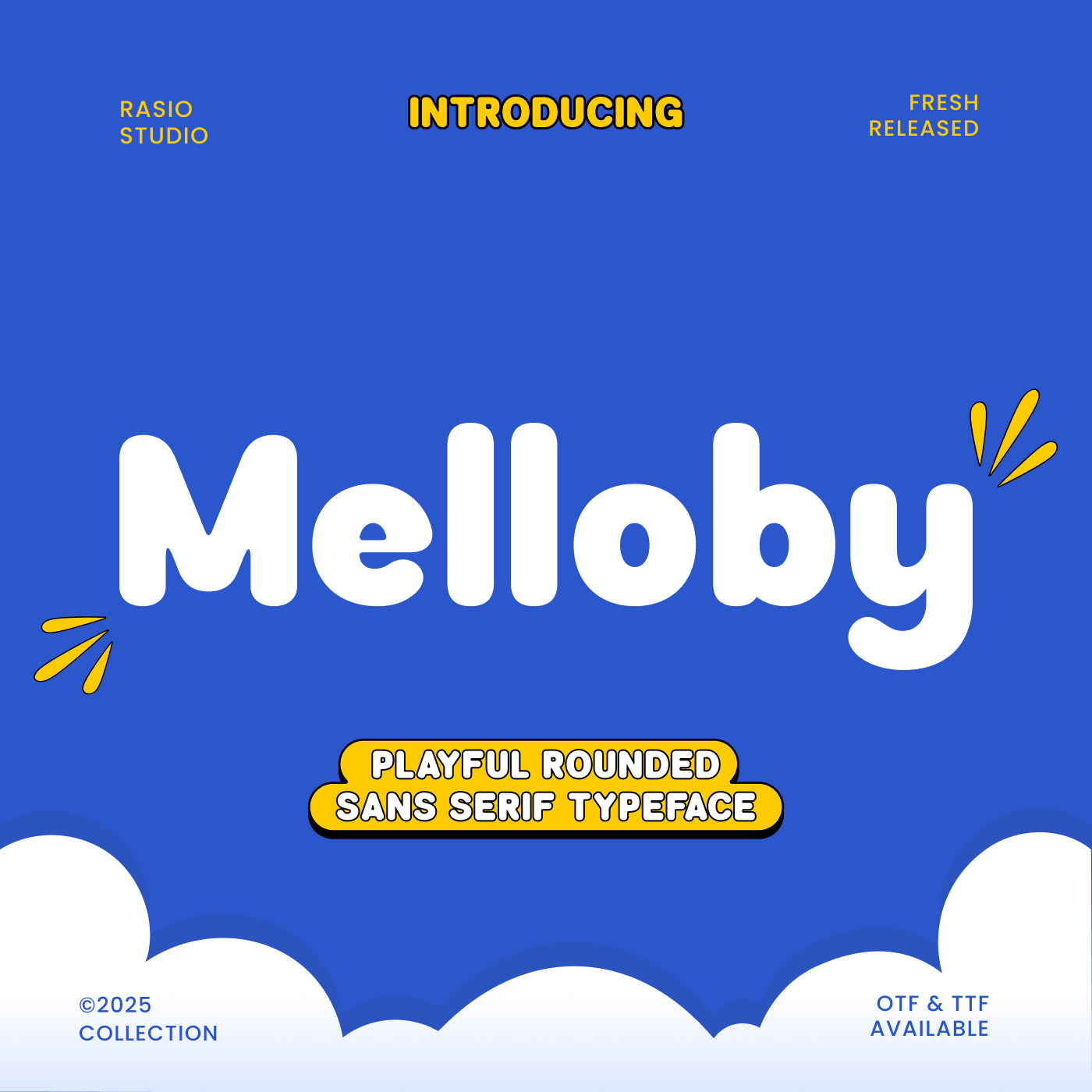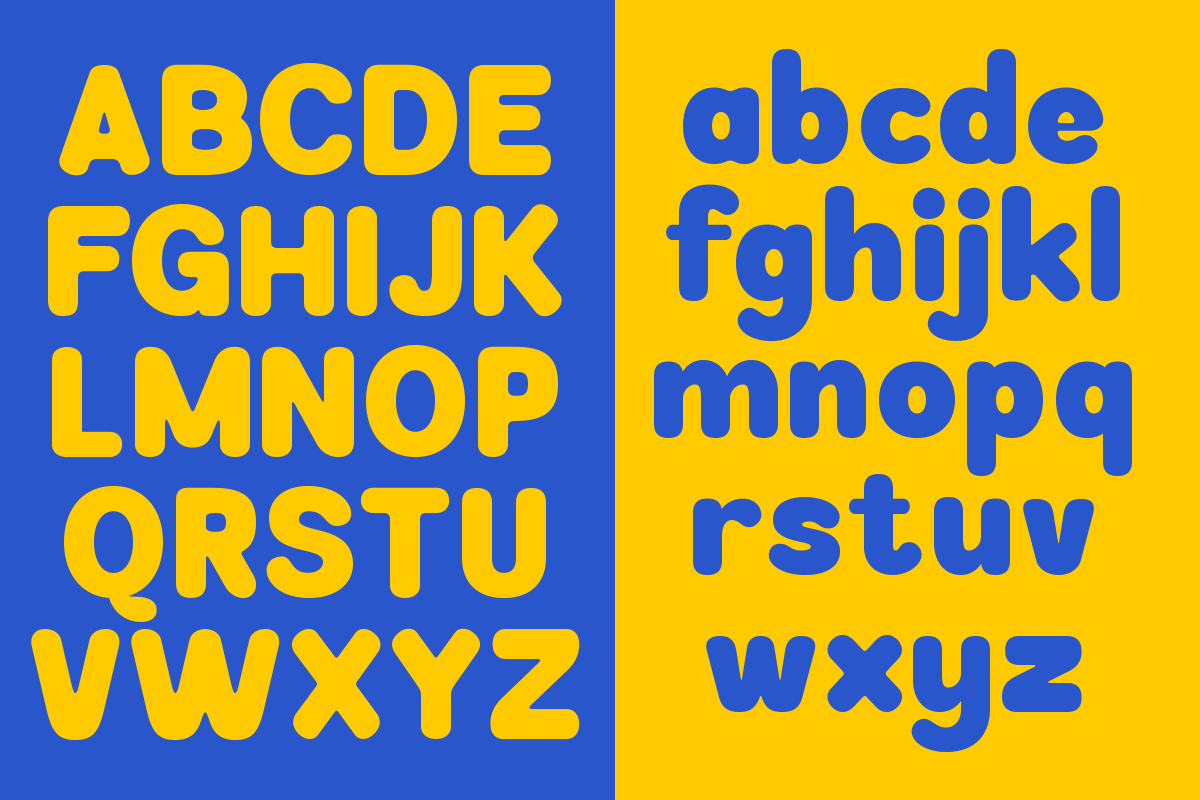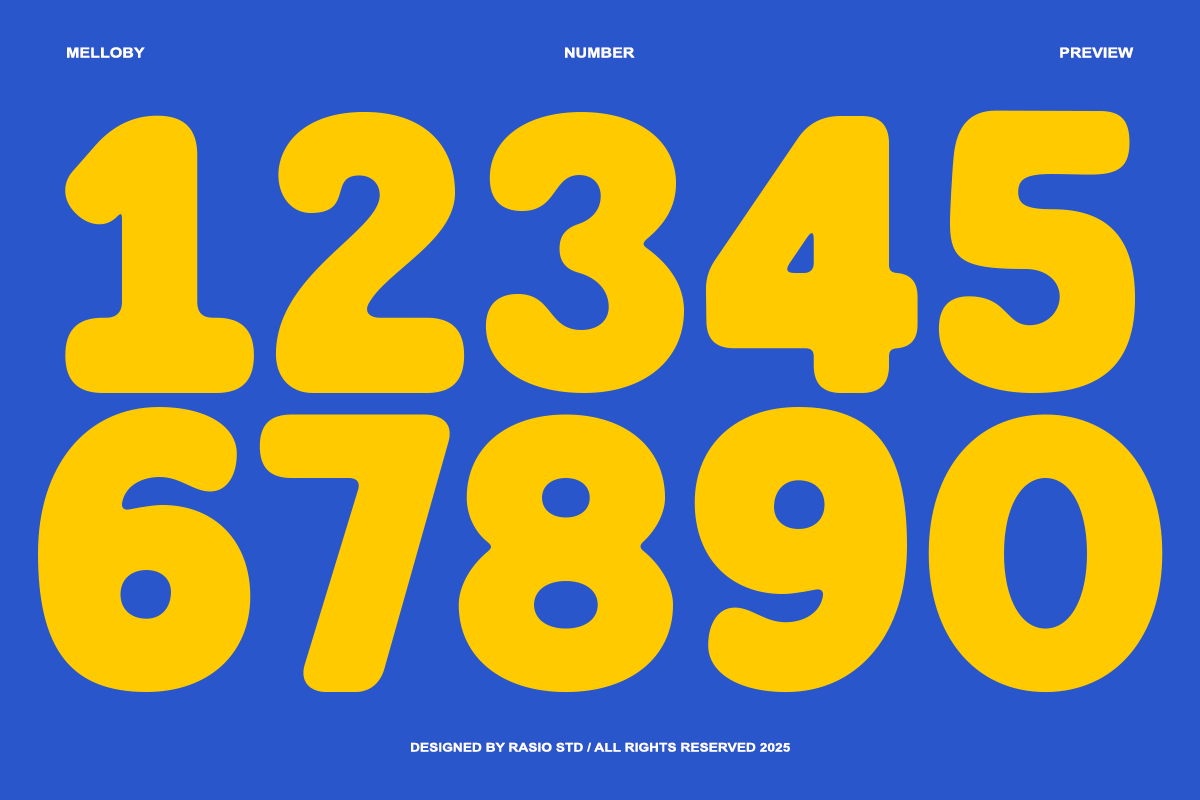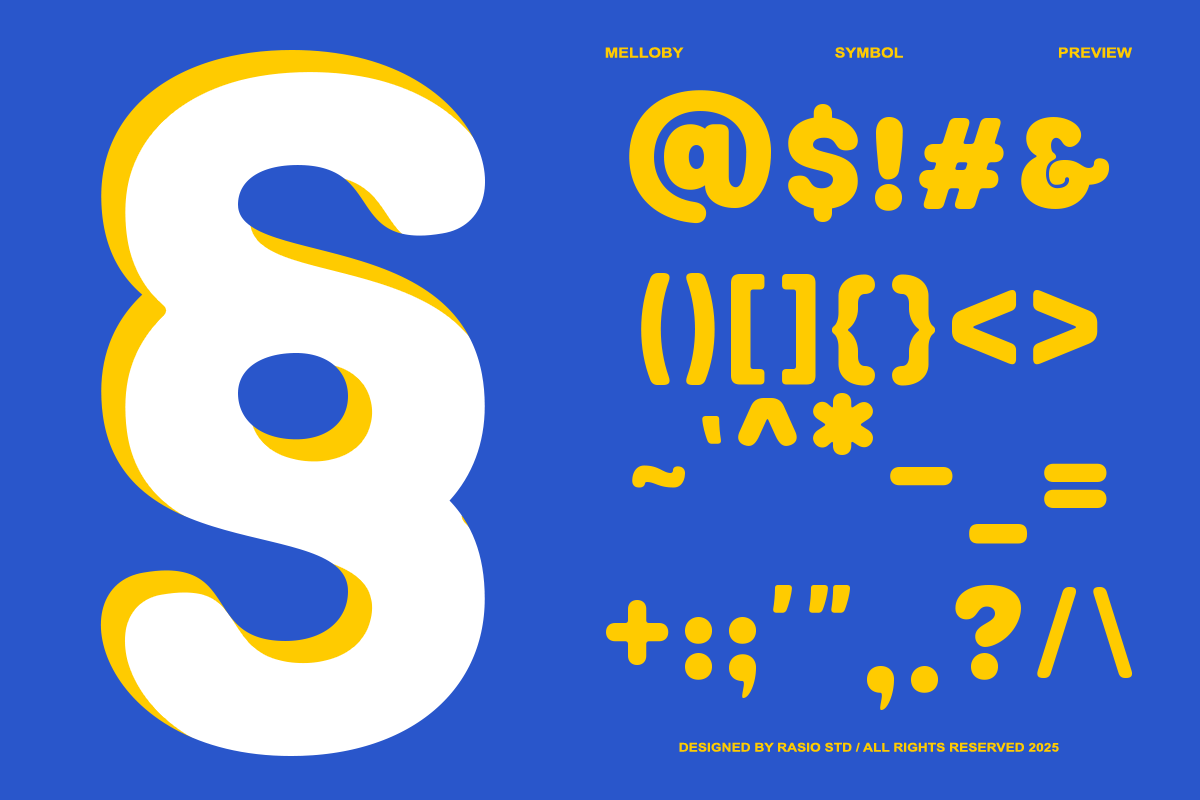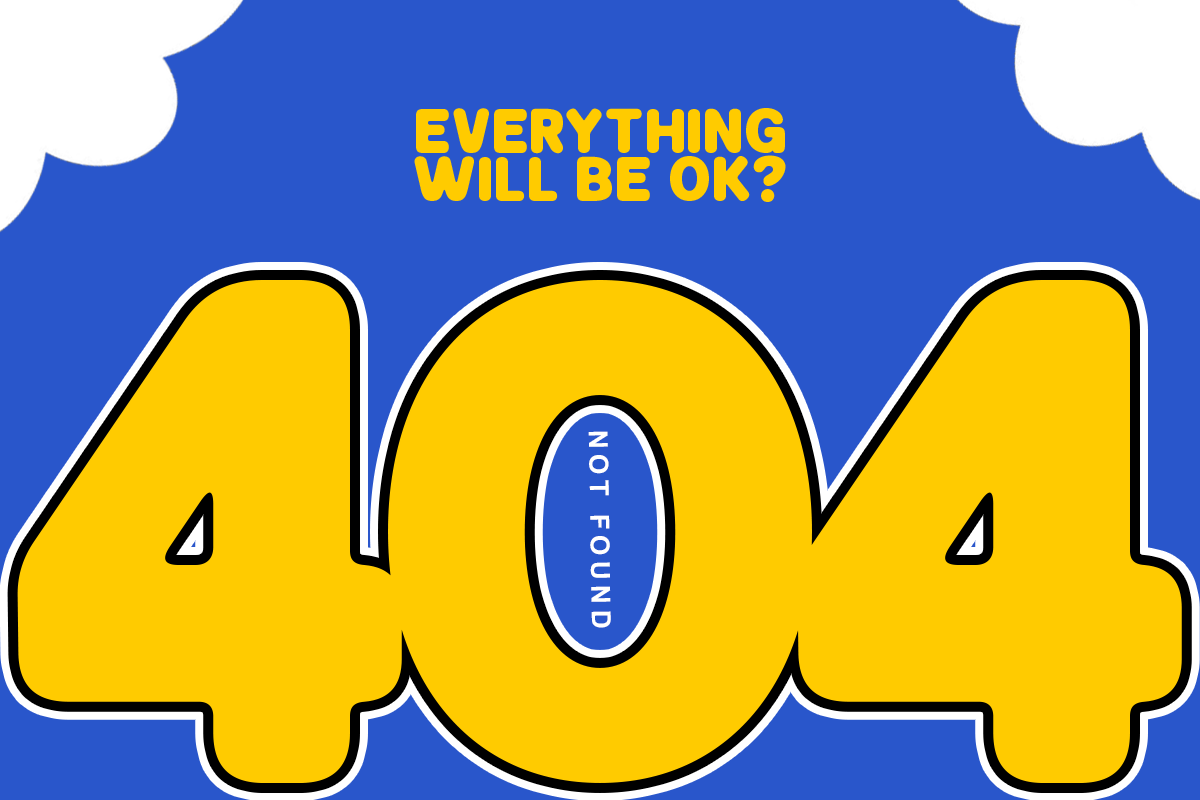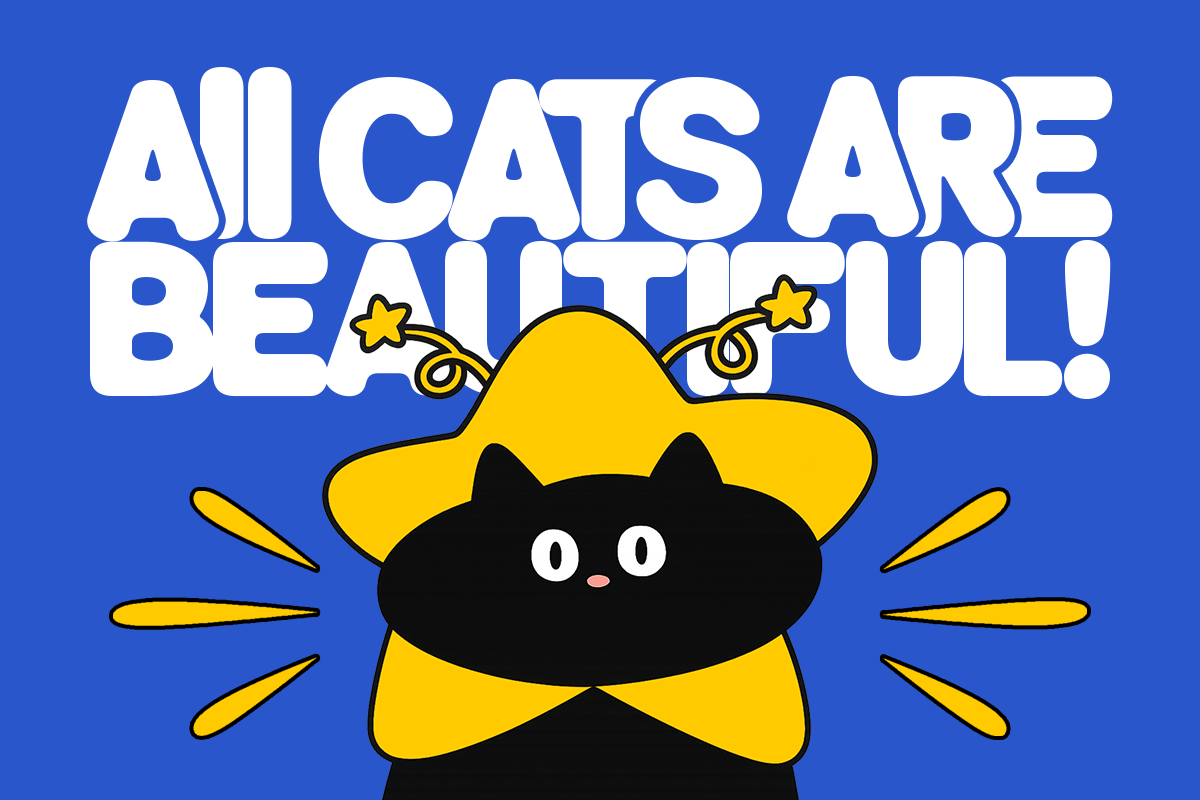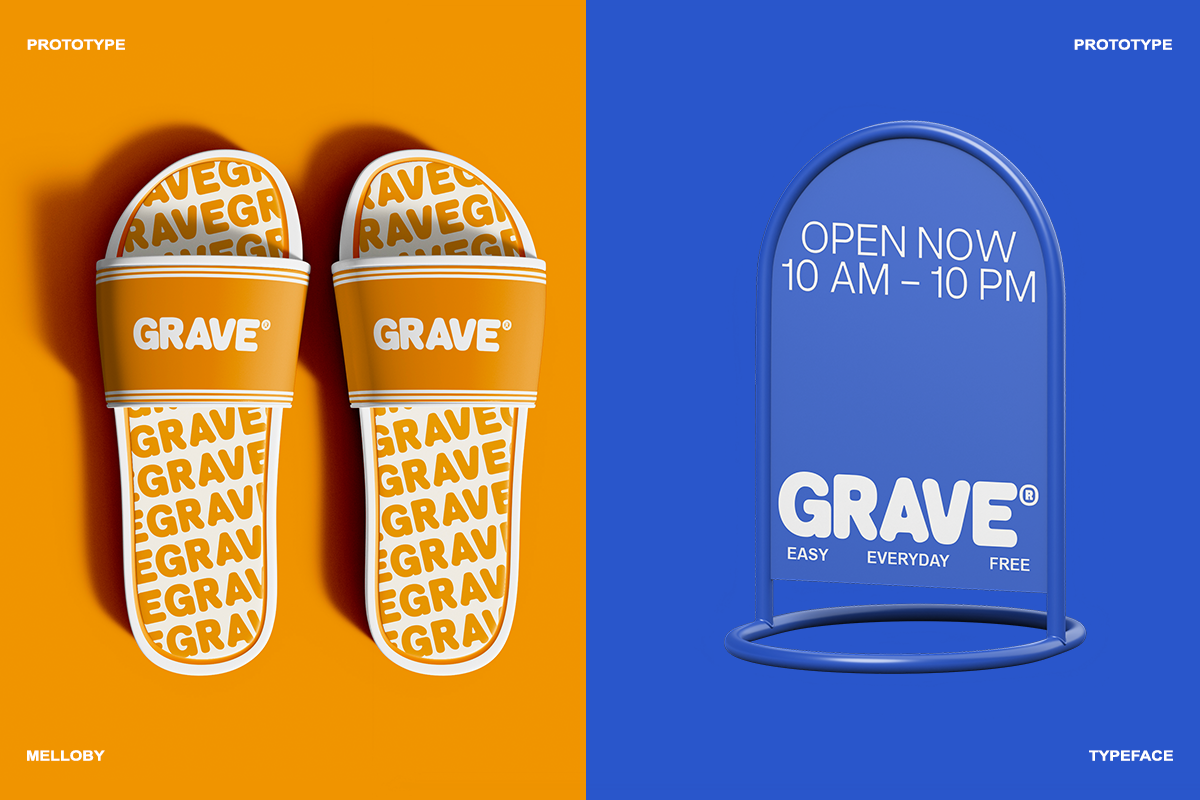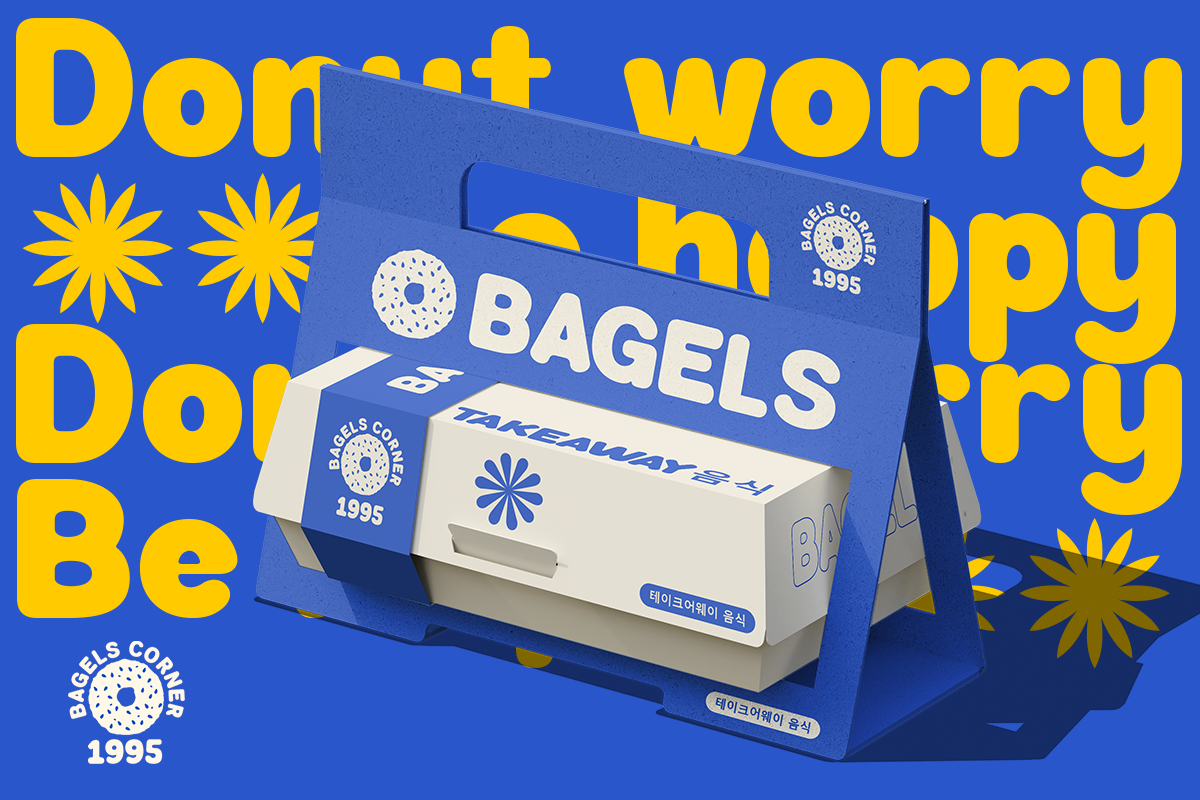
Melloby Playful Rounded Sans Serif Typeface Font
Melloby Rounded Sans Serif Font is a bold rounded display typeface designed with soft geometric construction, oversized curves, and generously rounded terminals that create an instantly cheerful and approachable personality. The letterforms feature consistent stroke widths, wide apertures, and smooth circular counters that enhance readability while maintaining a playful visual rhythm. Carefully balanced proportions and spacious character spacing allow the typeface to remain clean and highly legible even at large display sizes, making every headline feel friendly, energetic, and expressive without becoming overwhelming.
Designed for eye-catching branding and youthful visual communication, Melloby includes uppercase and lowercase characters, numerals, punctuation, for greater creative flexibility. Its rounded structure and bold silhouette perform exceptionally well across logos, product packaging, children's branding, educational materials, food and beverage campaigns, toy packaging, social media graphics, posters, and digital advertising. Whether used for colorful brand identities, playful editorial layouts, or modern promotional designs, Melloby delivers a warm, inviting typographic presence that creates memorable visual experiences across both print and digital media.
Melloby is a bold rounded sans serif display typeface featuring soft geometric letterforms, consistent stroke widths, and wide apertures. It includes uppercase and lowercase characters, numerals, and punctuation, available in OTF, TTF, and WOFF formats with multiplatform compatibility.